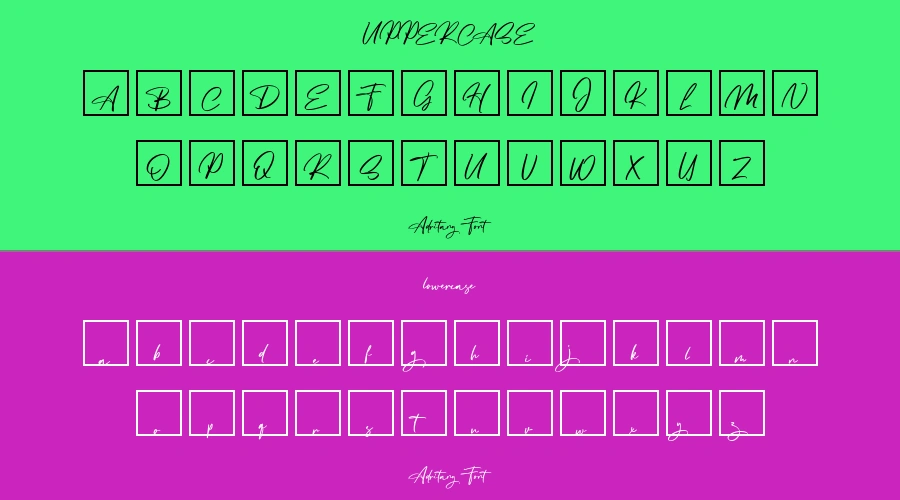
About Adritany Font
Adritany Font stands out for its distinctive combination of alternates and expressiveness. Ideal for brand guidelines, it provides the expressiveness and refinement that professional projects demand. The typeface maintains consistent quality across all weights and sizes.
Key features include refined convex bowls and practical oldstyle figures, enhancing typographic expression. In social media assets applications, Adritany Font demonstrates exceptional numerical alignment. The tail length and market positioning contribute to its distinctive character and professional appeal.